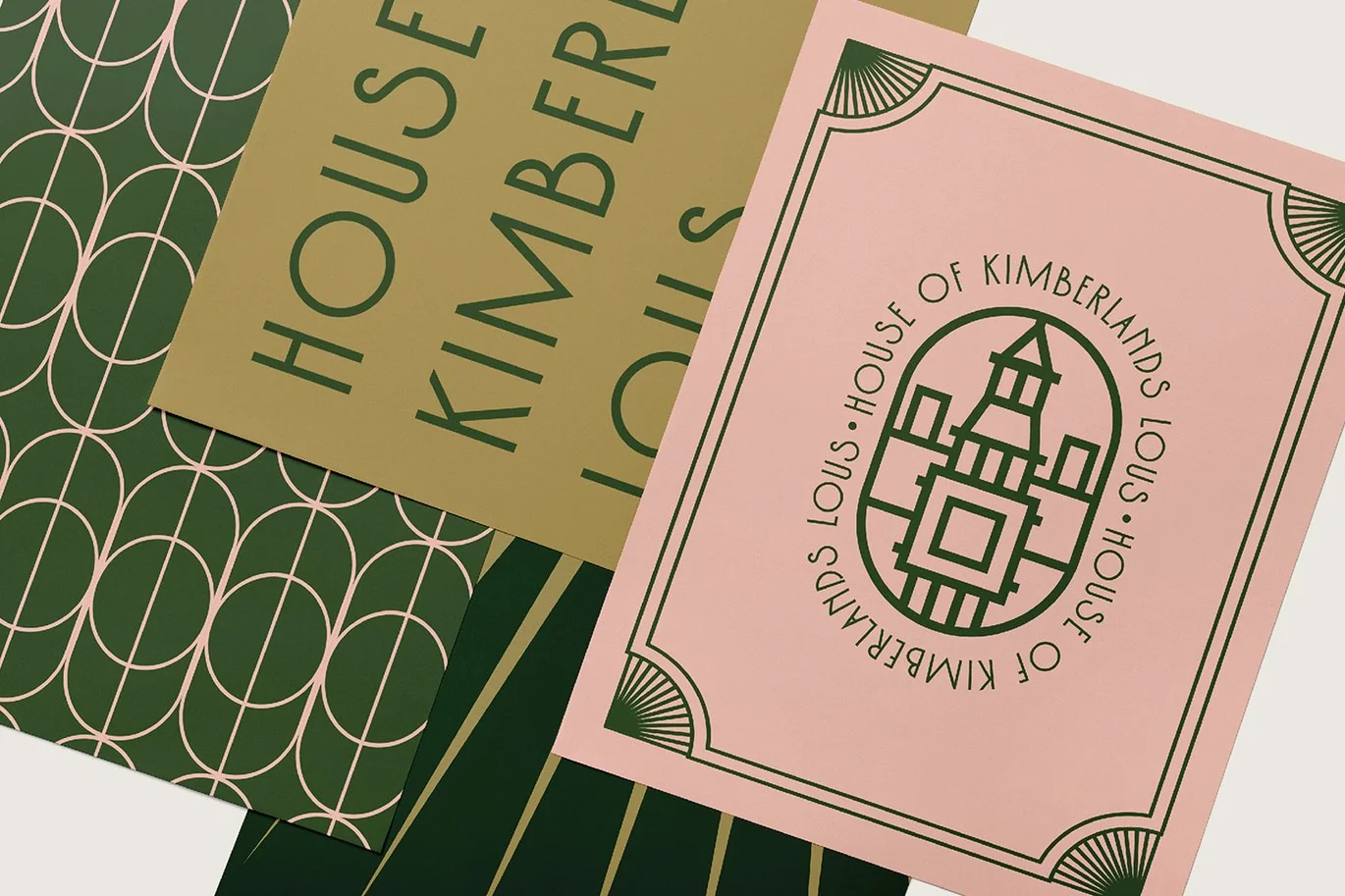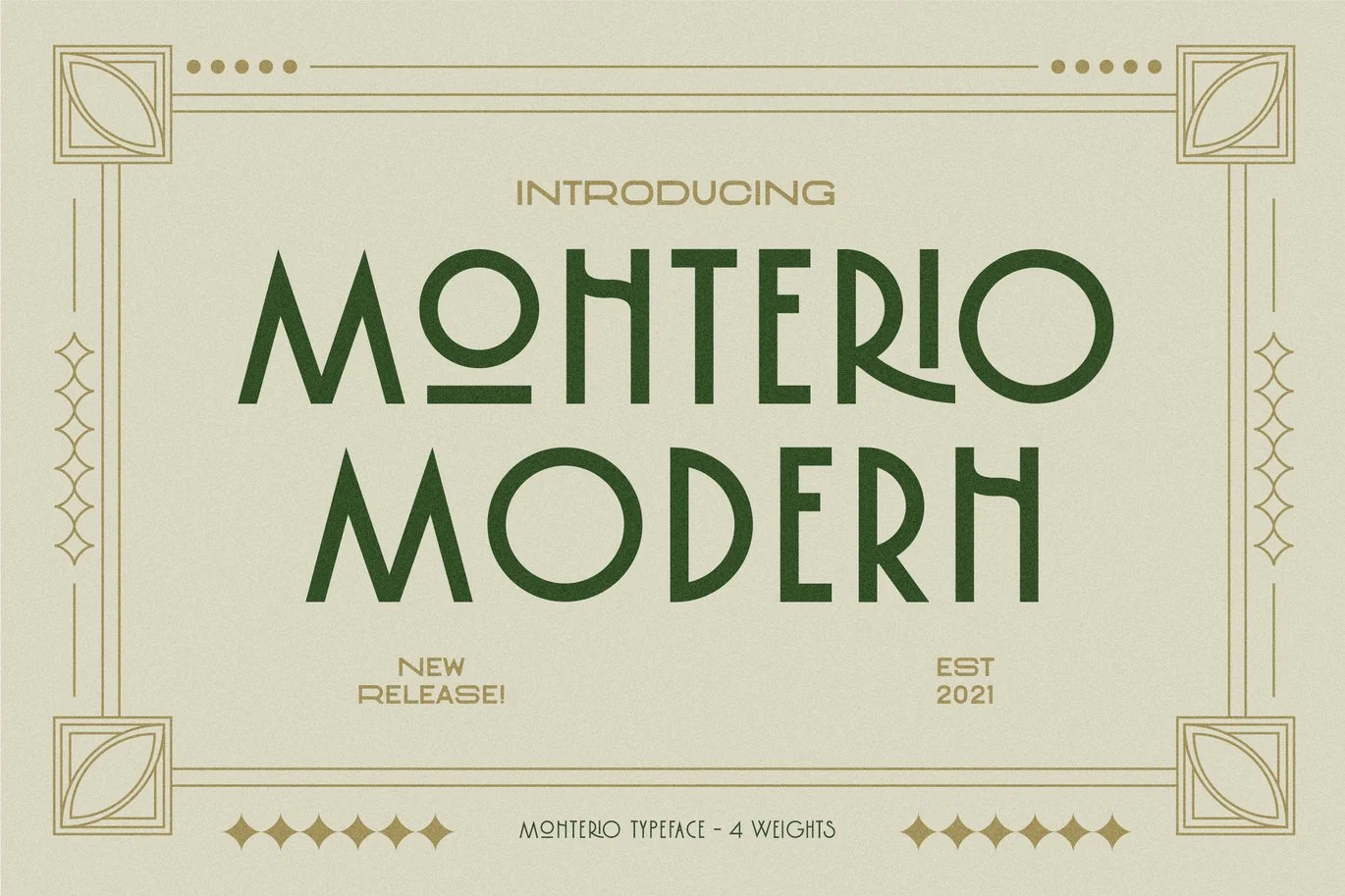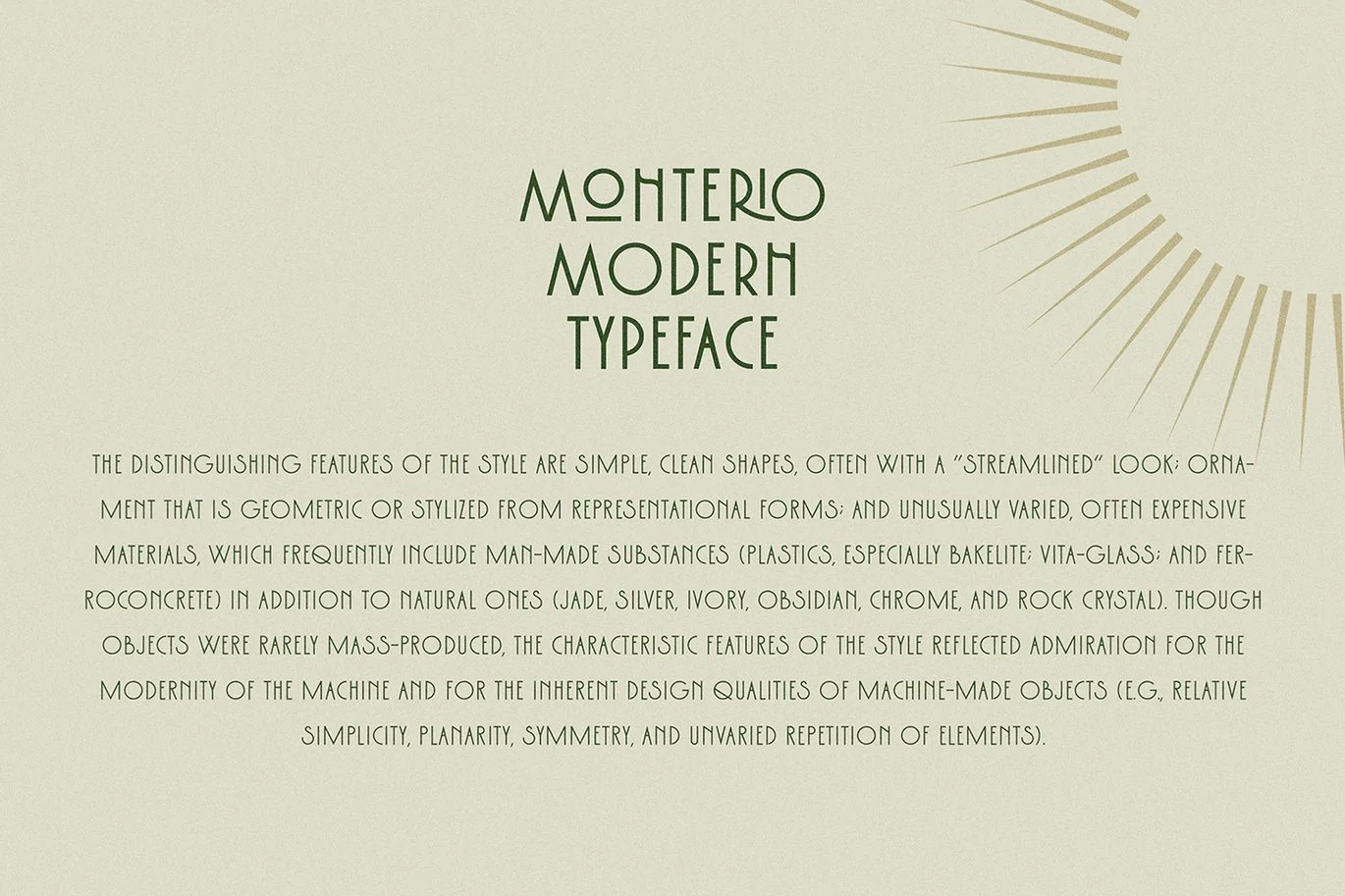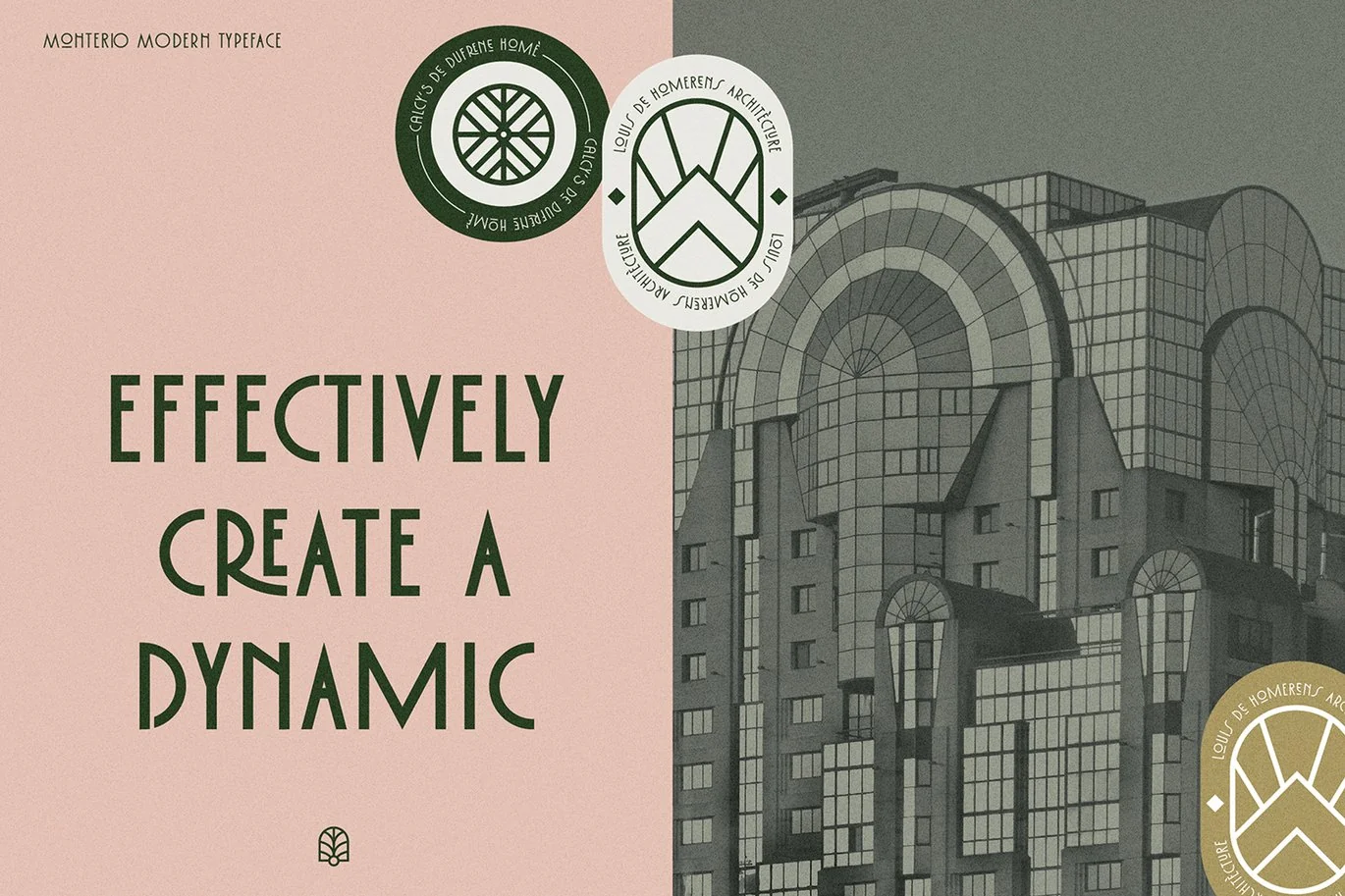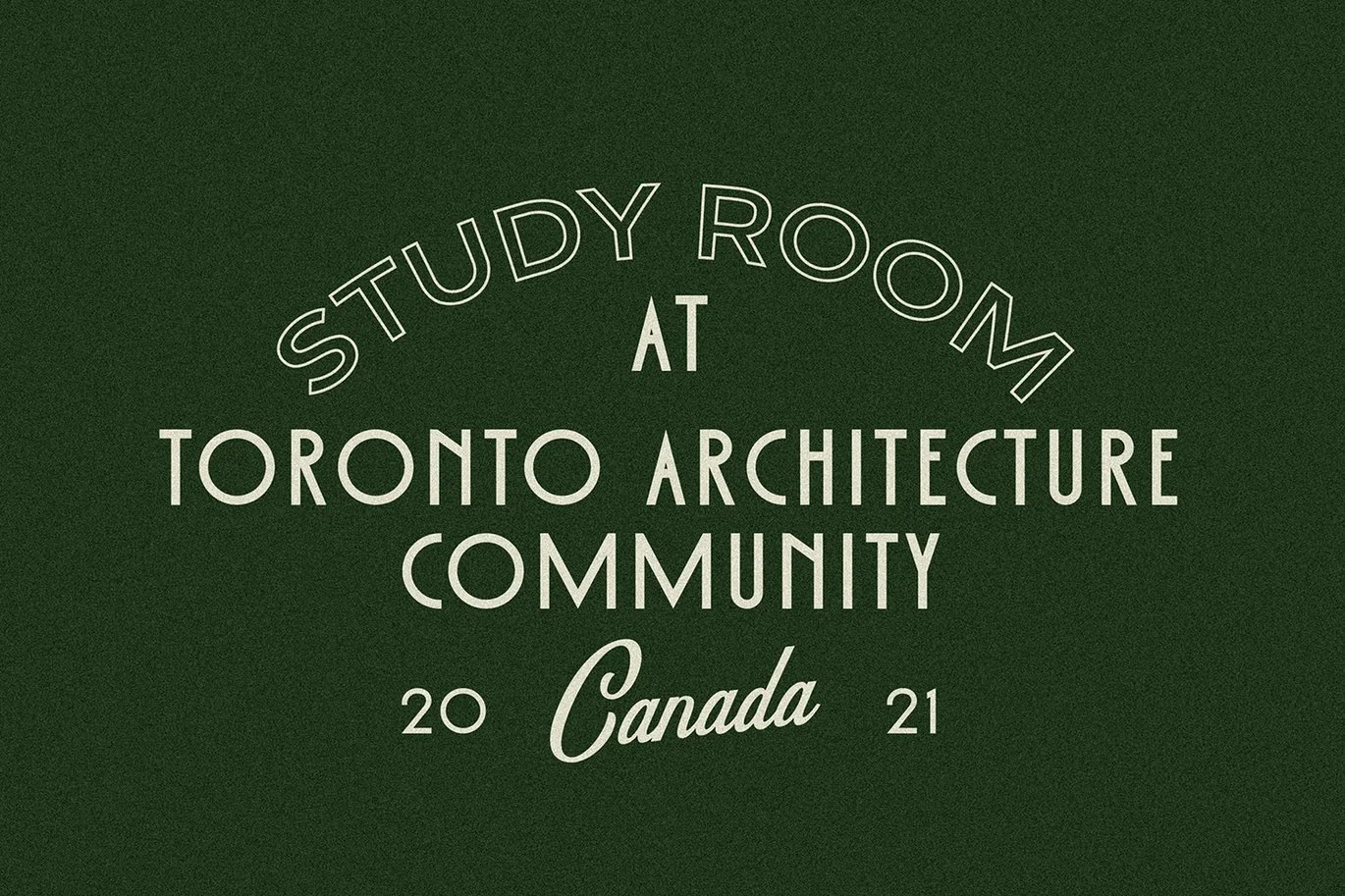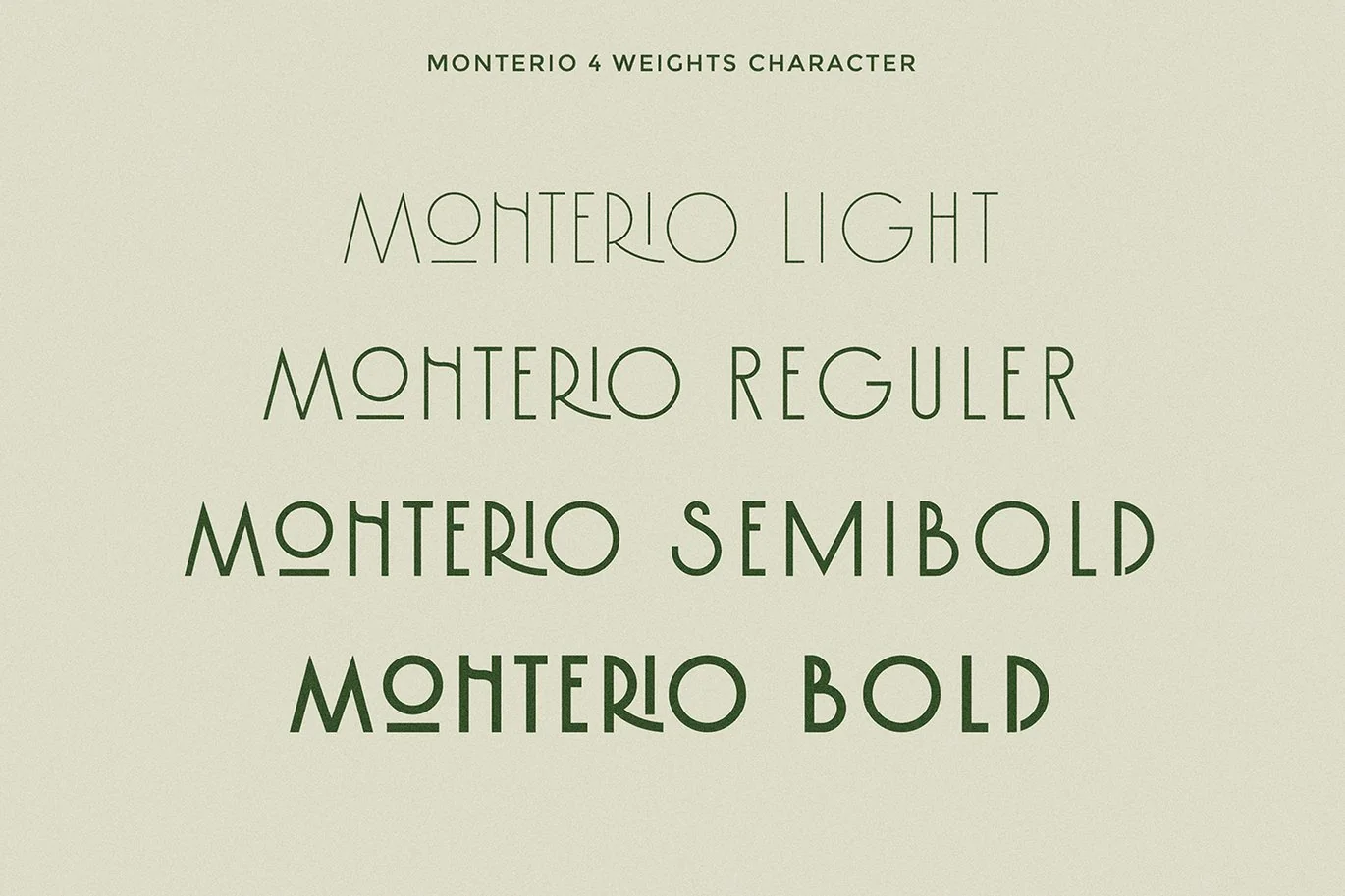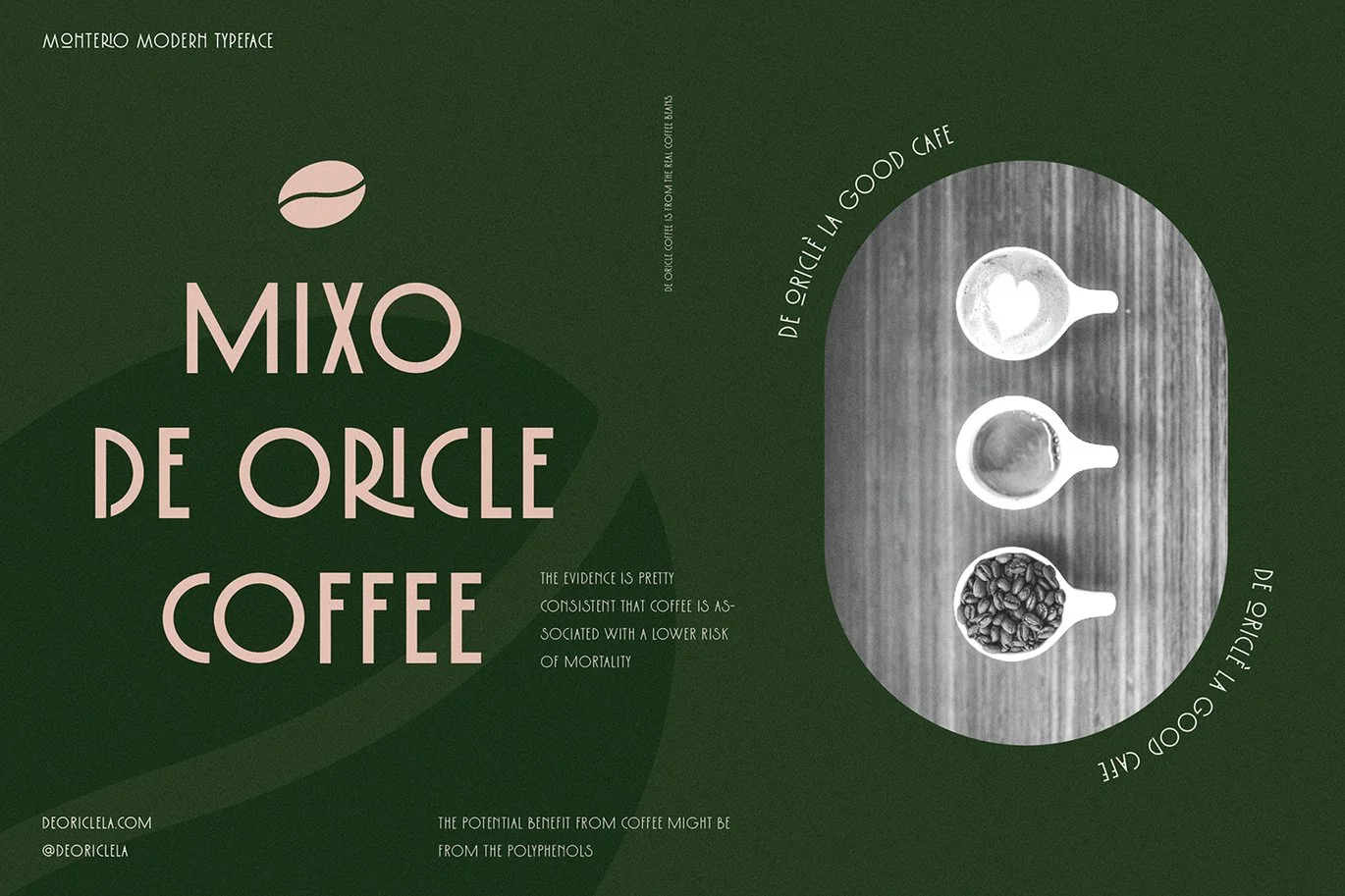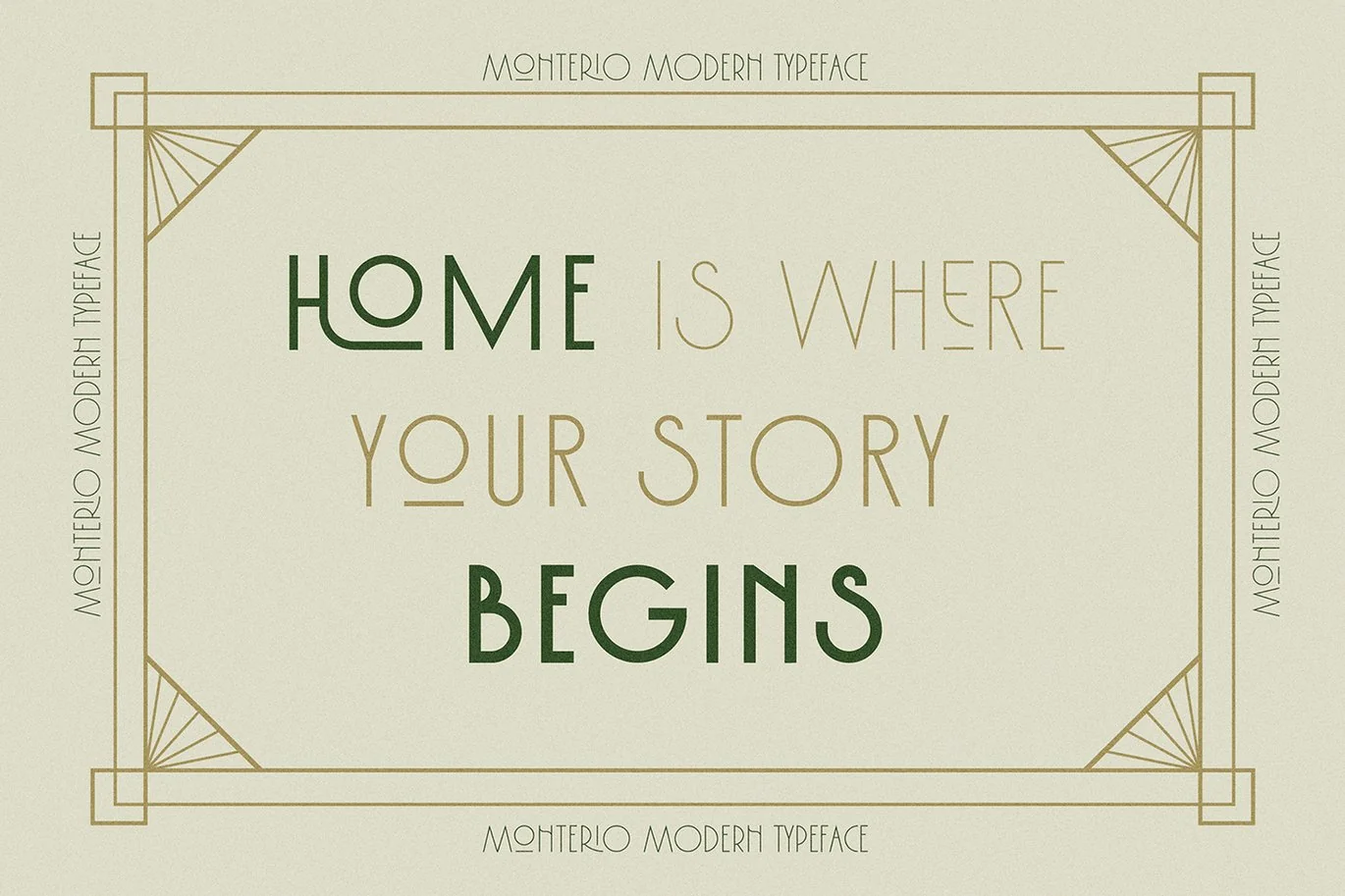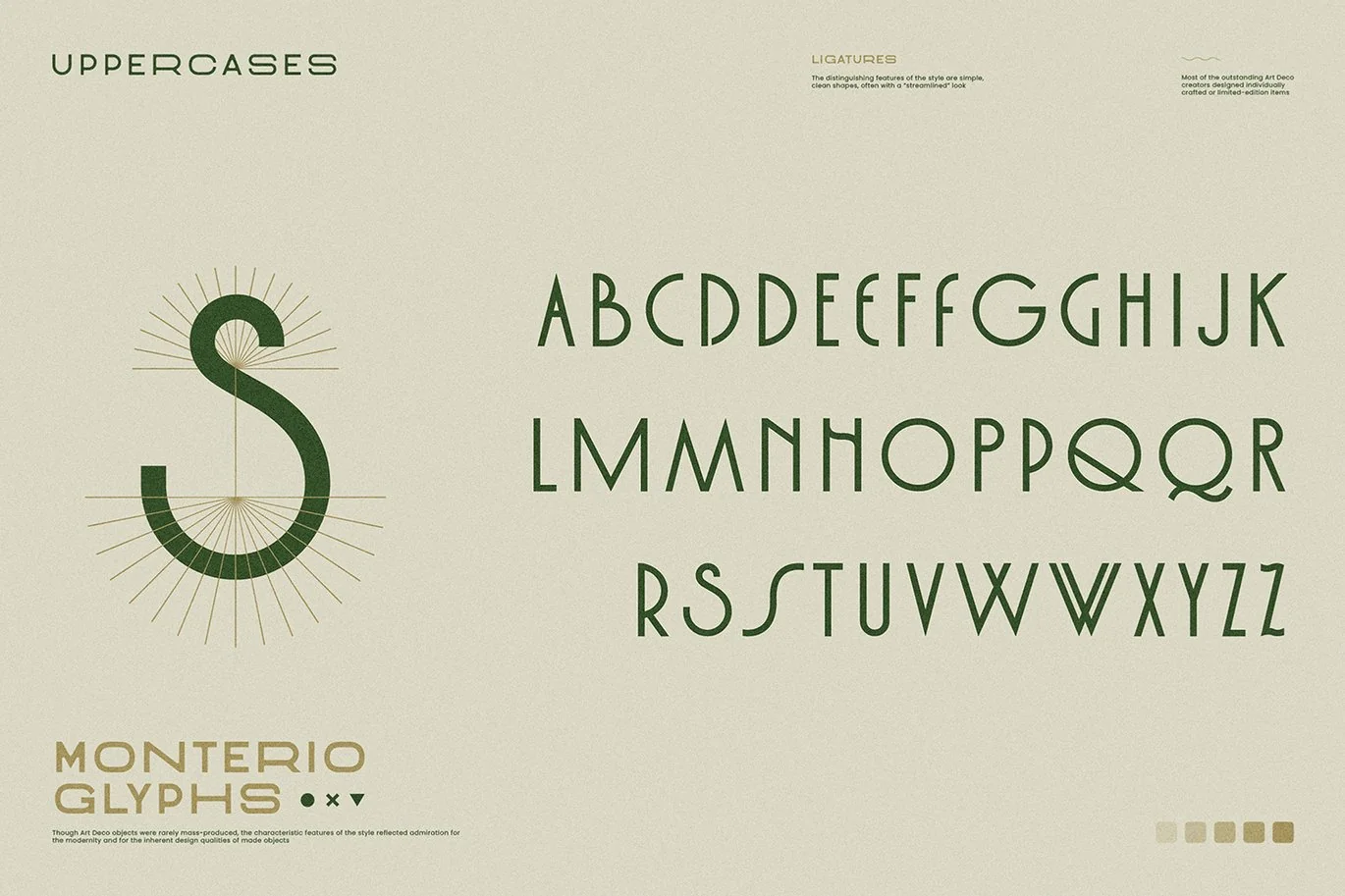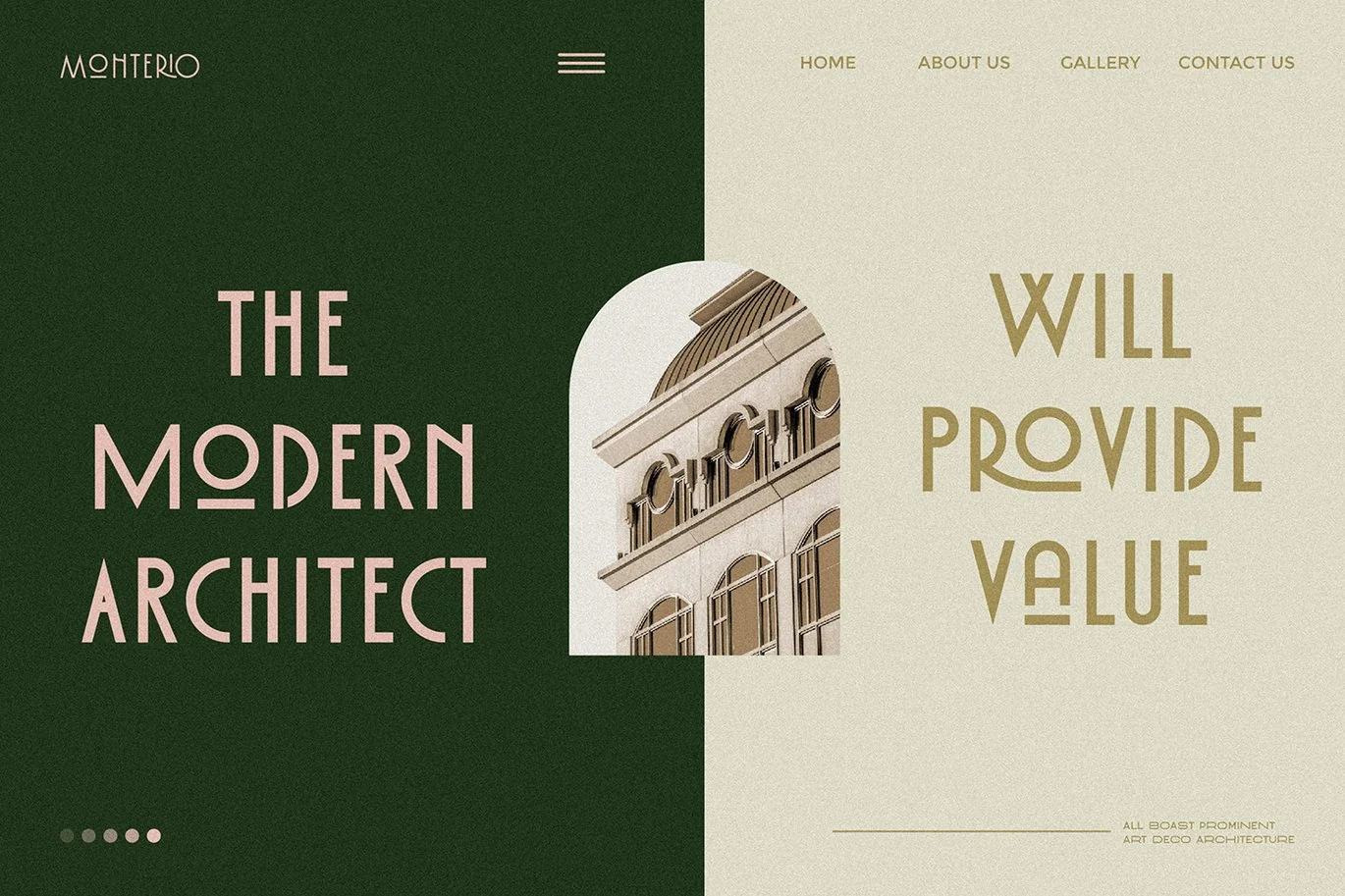
Monterio – Modern Art Deco Typeface
Monterio sans is a all-caps sans serif contemporary Art Deco typographic style , If you’re into classic/vintage letter designs, then this typeface suits best for you. Packed with 300+ glyphs (alternate and multilingual characters included), now it’s your time to go crazy and explore the uniqueness of this typeface!
- 4 Weights font
- Stylistic Alternates & Ligatures